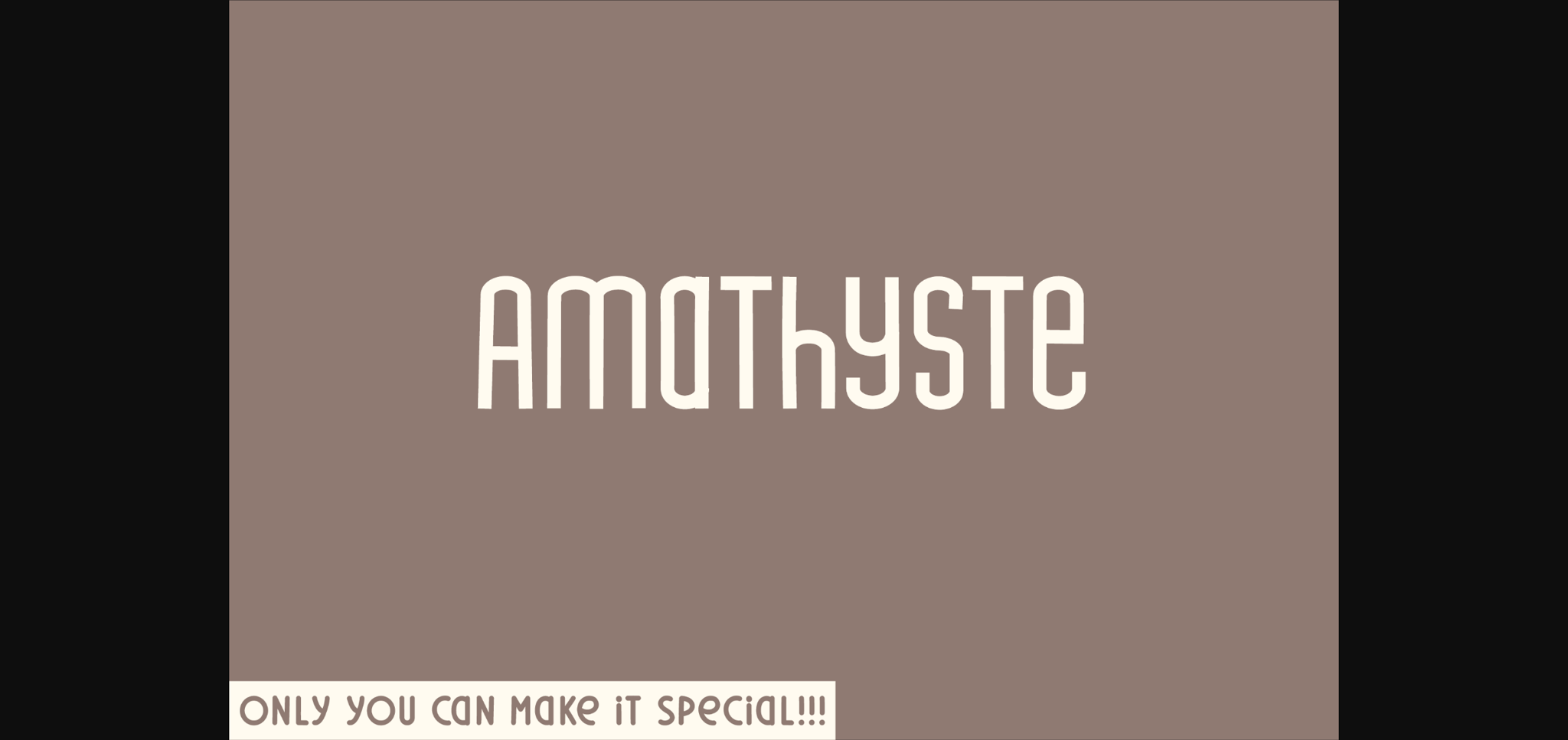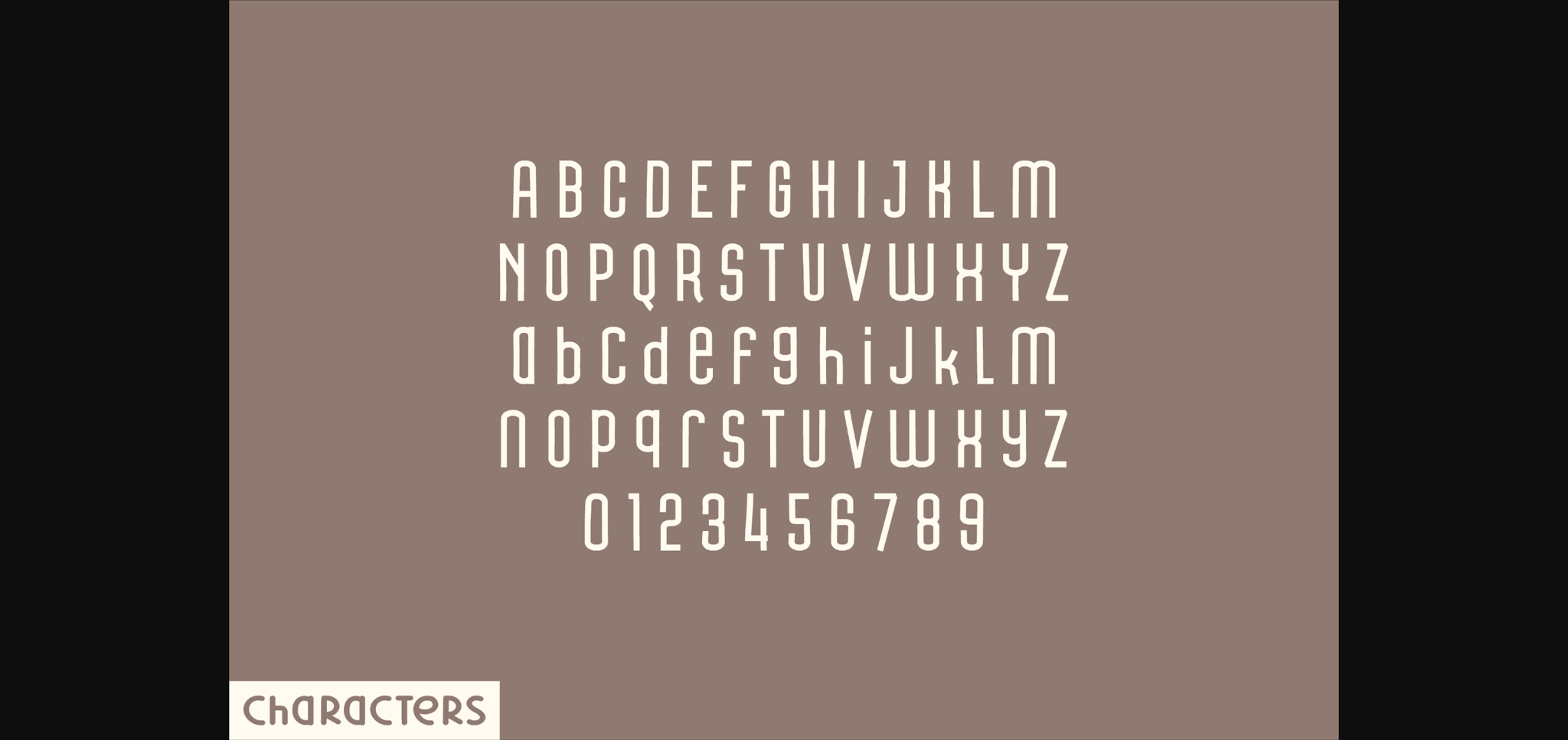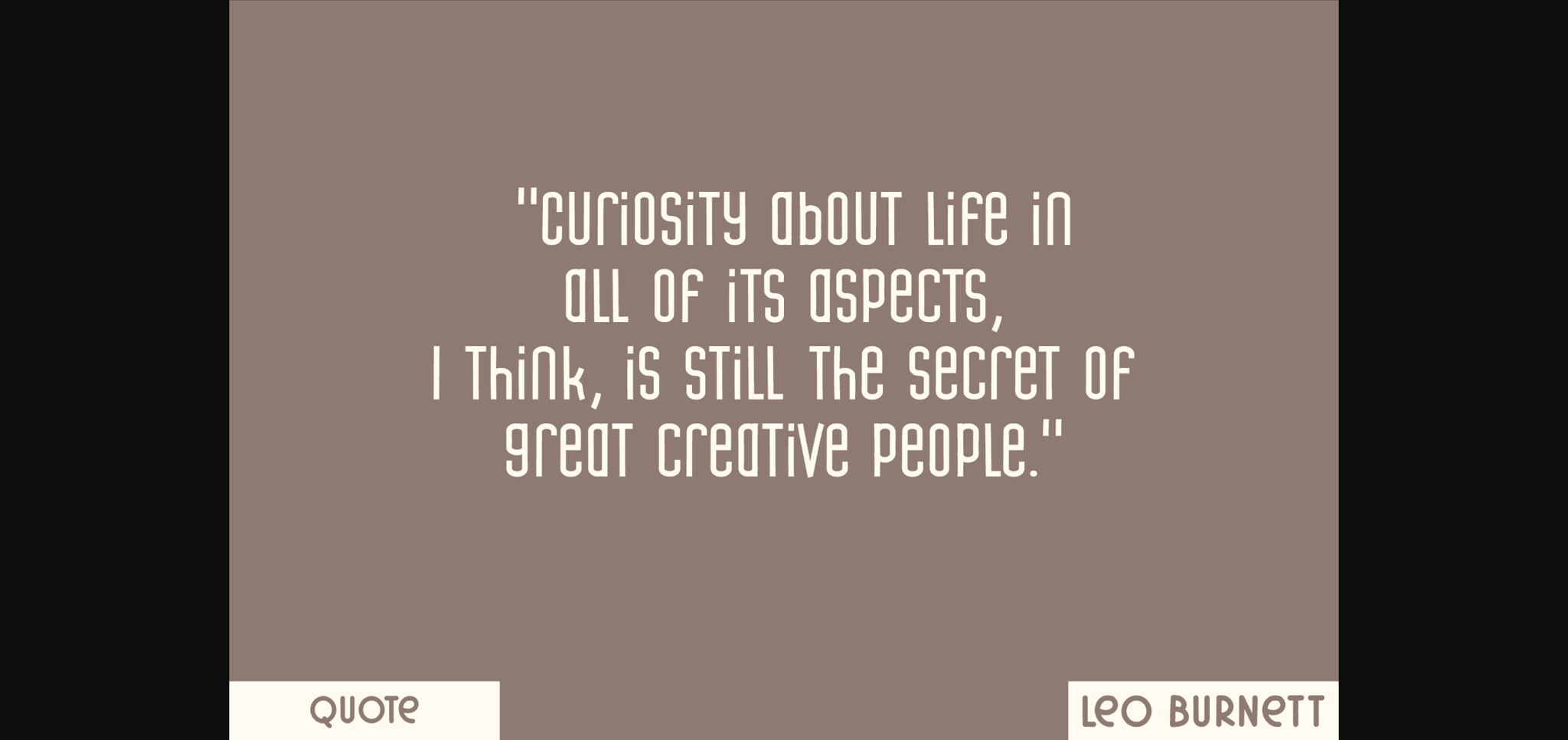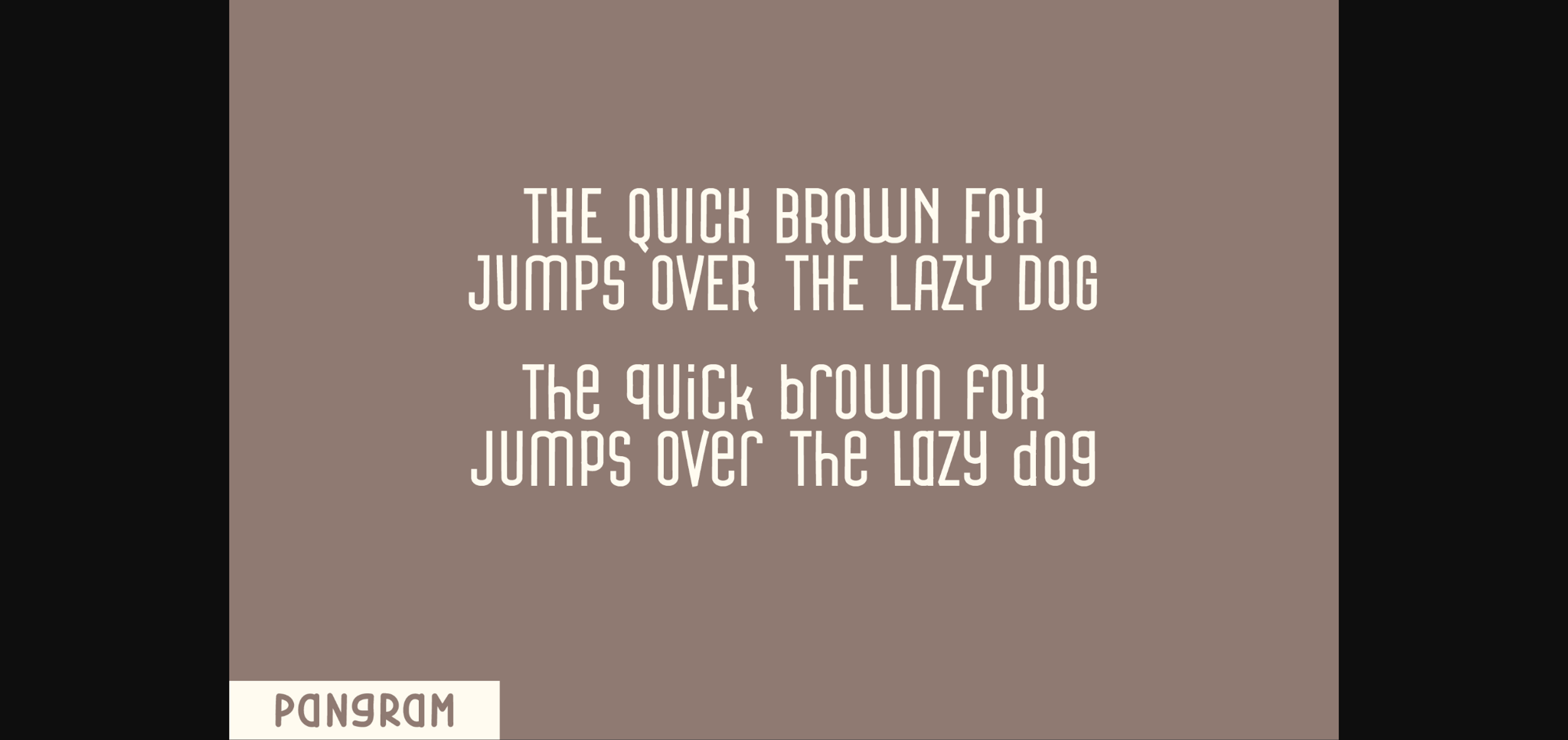
About Amathyste Font
Introducing Amathyste, an extraordinary display font that is a remarkable embodiment of the sans serif form. Every letter in Amathyste is sculpted with traditional points, exuding an impression that is as powerful as it is peculiar. A splendid choice for designs aiming to convey a message that is daring, striking, and audacious. Unleash your creativity with Amathyste and take your work to a whole new dimension.